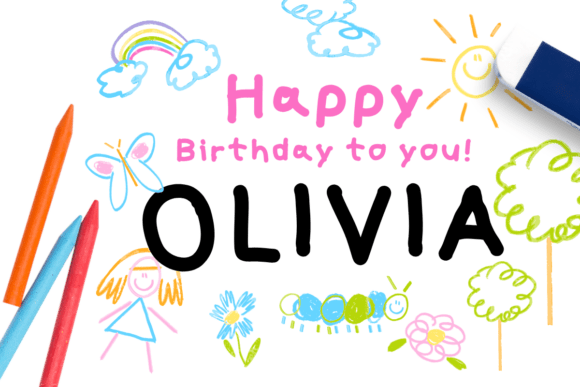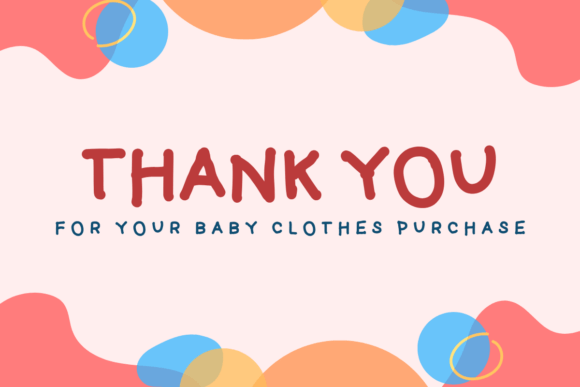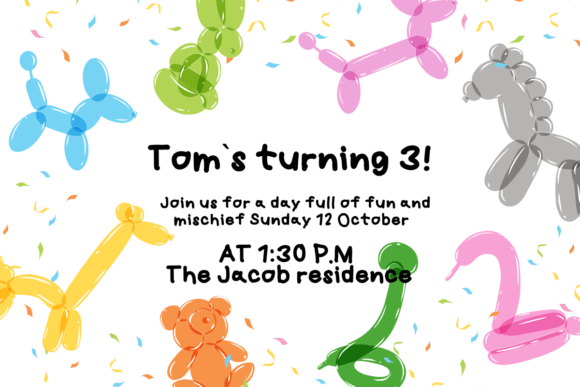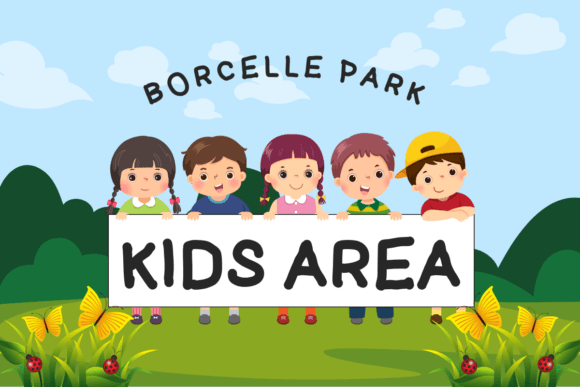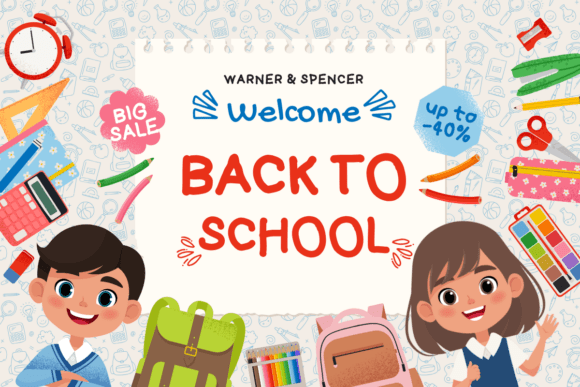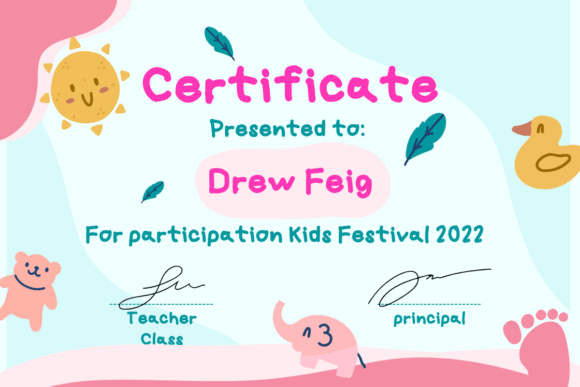
Introduction to Primary Neat Font
Remember that moment when you stumbled upon the perfect font for your design project? The one that makes your creative vision come alive and sets the tone for a cohesive brand identity? For designers seeking that elusive charm, Primary Neat Font is here to revolutionize your creative toolkit.
This delightful font embodies the essence of modern lifestyle brands, boasting ultra-rounded shapes and a bouncy rhythm that’s impossible to resist. Whether you’re working on a digital product, a brochure, or even a logo, Primary Neat Font’s organic hand-sculpted feel will add a touch of warmth and personality to your design.
As a valuable addition to your design resource, Primary Neat Font offers a complete set of uppercase, lowercase, numbers, and essential mathematical symbols, making it a high-quality, functional, and adorable choice for your creative project.
Key Features of Primary Neat Font
- Unique, modern design that is perfect for adding a touch of elegance to any creative project.
Honest Review: Primary Neat Font
I recently came across the Primary Neat Font, and I was excited to try it out for my latest design project. After some experimentation, here’s my honest review.
- High-quality design: The font is clean, modern, and visually appealing.
- Limited font styles: While the font is well-designed, it’s a bit limited in terms of styles and variations.
- No bold or italic options: I wish there were more options for emphasizing text.
Overall, I’m impressed with the Primary Neat Font. It’s a great addition to any design resource library, and I’d definitely recommend it for creative projects that require a clean, modern look. While it’s not perfect, its strengths make up for its limitations.
Primary Neat Font
The Primary Neat Font is a versatile design resource ideal for creative projects. Its high quality and transparent background make it a perfect addition to any visual project.
Tips for Getting the Most Out of Primary Neat Font
To get the most out of the Primary Neat Font, use it consistently throughout your design. You can also experiment with different font sizes, colors, and styles to create a unique look.
The Primary Neat Font is perfect for:
– Business presentations
– Blog posts and articles
– Infographics
Alternatives to Primary Neat Font
The Great Vibes Font is a high-quality, elegant script font perfect for creative projects. It features a transparent background, making it ideal for overlaying on images or designs. When to use: Titles, headings, and quotes in a creative project. It compares to Primary Neat Font as it has a more classic and sophisticated feel, while Primary Neat Font has a more modern and minimalist approach.
The Alex Brush Font is a beautiful, handwritten font suitable for design resources. It’s available for free download and features a high-quality design. When to use: Quotes, titles, and headings in a creative project. It compares to Primary Neat Font as it has a more personal and artistic feel, while Primary Neat Font has a more uniform and modern look.
The Dancing Script Font is a playful, cursive font ideal for creative projects. It features a transparent background and is available for free download. When to use: Titles, headings, and quotes in a creative project. It compares to Primary Neat Font as it has a more whimsical and fun feel, while Primary Neat Font has a more serious and professional approach.